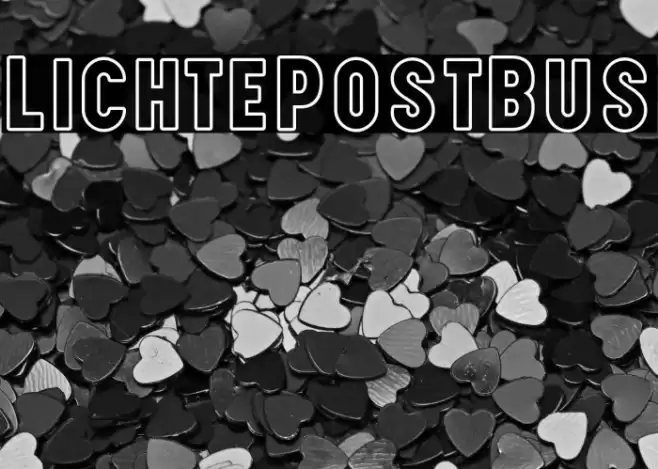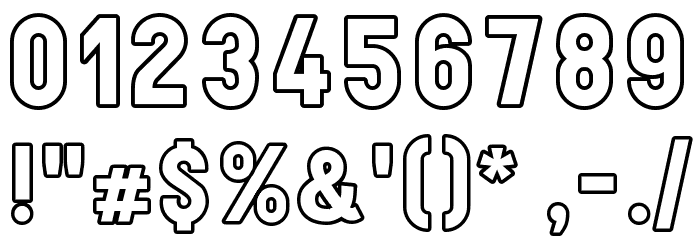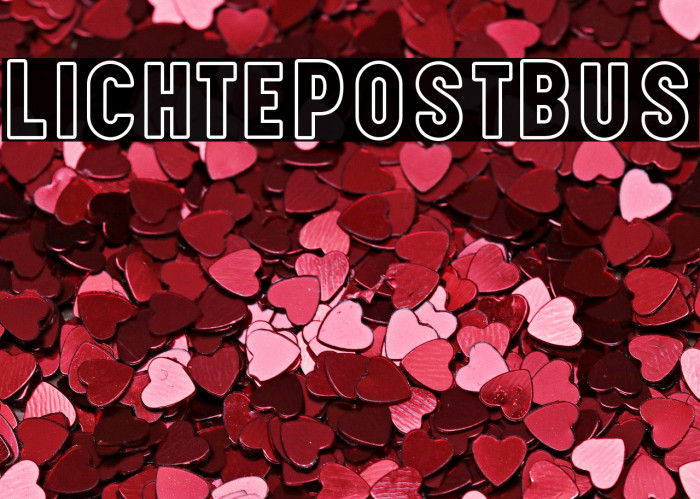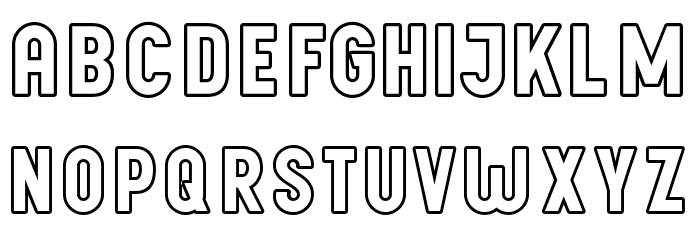
LichtePostBus Font
LichtePostBus Description
This font features a bold, outlined style with a modern and geometric appearance. The characters are uppercase and lowercase letters, along with numbers and special symbols. Each letter is constructed with a consistent stroke width, creating a uniform and cohesive look. The outline design gives it a unique and eye-catching appearance, making it suitable for attention-grabbing headlines and titles. The font maintains a balanced proportion, ensuring readability while adding a touch of creativity. Its clean lines and structured form make it versatile for various design applications.
A bold, outlined, geometric font with a modern style from Uncategorized fonts.
- Proposed Projects: Ideal for posters, logos, branding, and headlines where a modern and bold statement is needed.